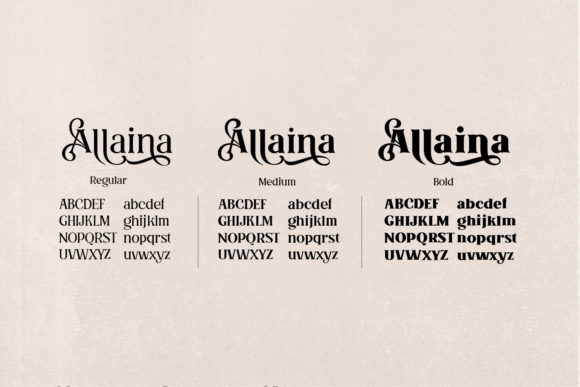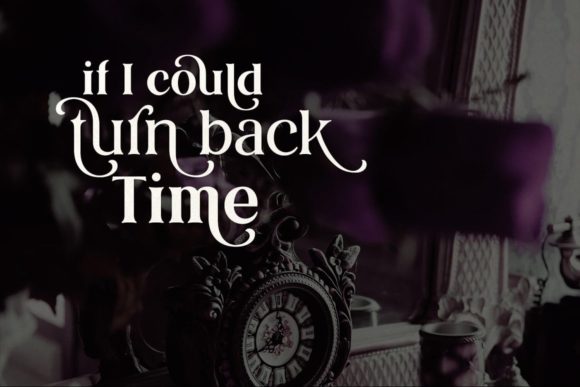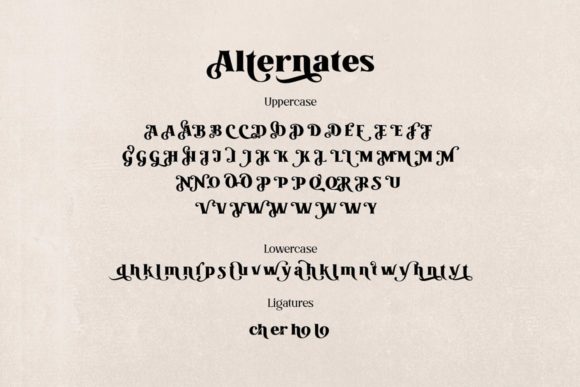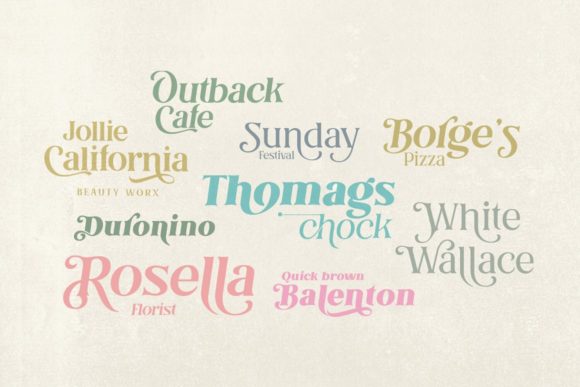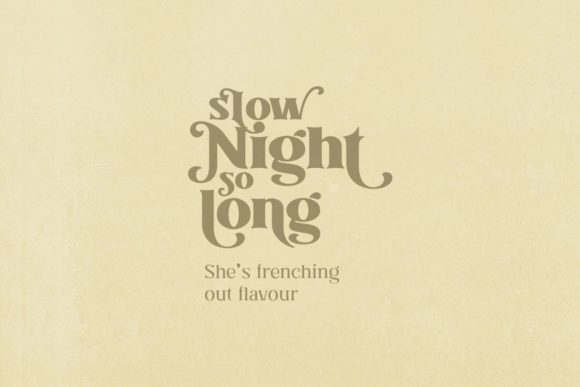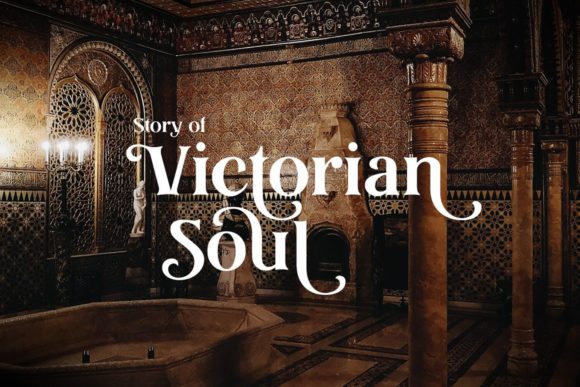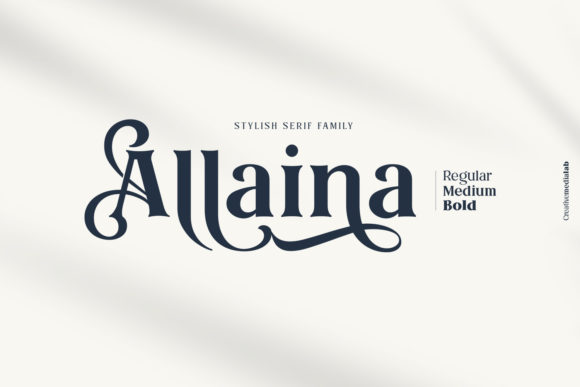
Introducing Allaina Font: Elevate Your Designs with Elegance and Style
Are you on the hunt for a font that exudes sophistication, elegance, and versatility? Look no further than Allaina Font, a stunning serif font that is sure to capture your heart. With its refined and stylish aesthetic, Allaina is perfect for designers and crafters seeking to add a touch of luxury to their creations.
What Makes Allaina Font So Special?
Allaina Font boasts an incredibly versatile style that lends itself to a wide range of applications. Whether you’re designing wedding invitations, stationery, social media posts, or any other visual project, Allaina is the perfect choice. Its elegant and refined features make it an ideal font for:
• Wedding invitations and ceremony materials
• Stationery and paper crafts
• Social media posts and graphics
• Branding and packaging design
• And many more!
The Characteristics of Allaina Font
So, what sets Allaina Font apart from other serif fonts on the market? Here are just a few of its key characteristics:
• Elegant and refined: Allaina’s sleek lines and classic serif features evoke a sense of sophistication and luxury.
• Versatile: Whether you’re designing for print or digital, Allaina adapts seamlessly to any medium.
• Highly legible: With its clear and concise letterforms, Allaina ensures that your message is always communicated effectively.
How to Use Allaina Font in Your Designs
Ready to fall in love with Allaina Font? Here are some ideas to get you started:
• Create stunning wedding invitations and ceremony materials that set the tone for a luxurious and unforgettable event.
• Design beautiful stationery and paper crafts, such as greeting cards, journals, and gift tags.
• Elevate your social media presence with eye-catching graphics and posts that showcase your brand’s personality.
• Develop a cohesive brand identity with Allaina Font as the centerpiece of your visual design.
Why Designers and Crafters Love Allaina Font
Don’t just take our word for it! Designers and crafters around the world have fallen in love with Allaina Font, and here’s why:
• High-quality design: With its crisp and clean lines, Allaina Font is perfect for both print and digital applications.
• Endless creative possibilities: From wedding designs to branding and packaging, Allaina Font offers endless opportunities for creative expression.
Get Ready to Elevate Your Designs with Allaina Font